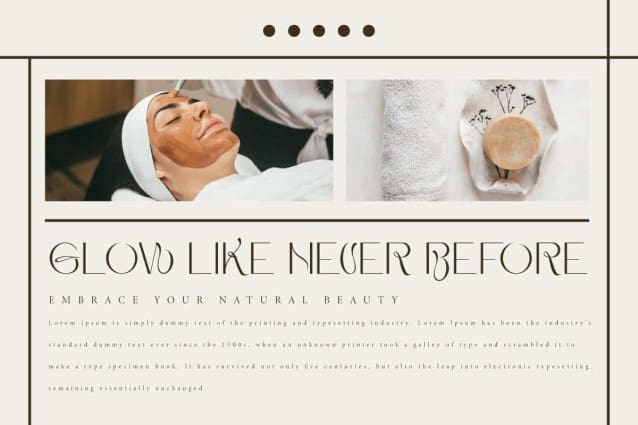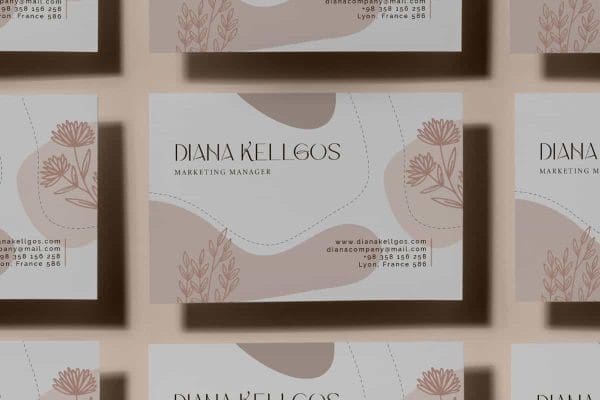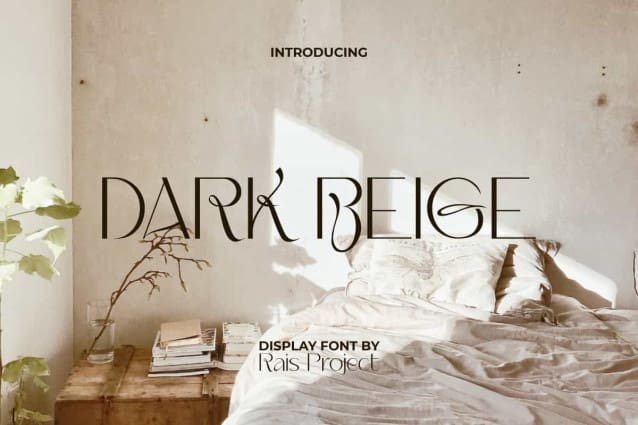
Dark Beige Font
Dark Beige Font is a beautiful, classic and aesthetic sans serif display font in sophisticated stunning style. Some of the uppercase in this font have beautiful flowing lines that differentiate them from the others. It will be good for any designs, such as brand image, cover, custom design, flyer, invitation, label, marketing material, menu, poster, product packaging, quote, signage, stationery, website page, and more!
Dark Beige Font includes a full set of Uppercase and Lowercase Letters, Numerals, and large range of Punctuation. This elegant font will be suitable for various industries, such as accessories, advertising, beauty product, cafe, crafting, event or wedding organizer, fashion, furniture, marketing, movie, printing, publishing, real estate, restaurant, spa salon, etc.